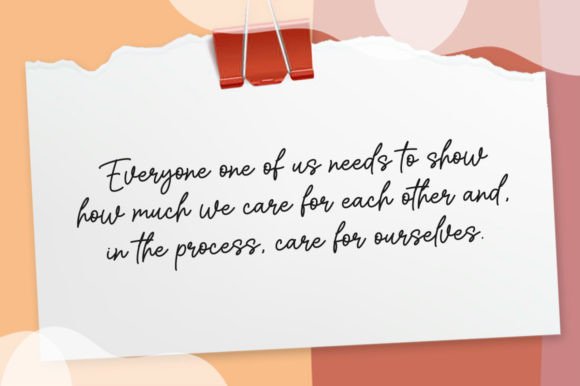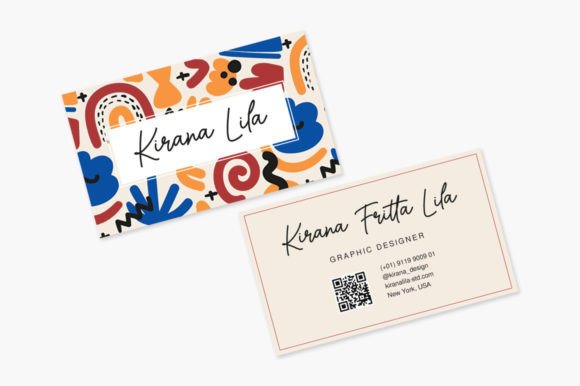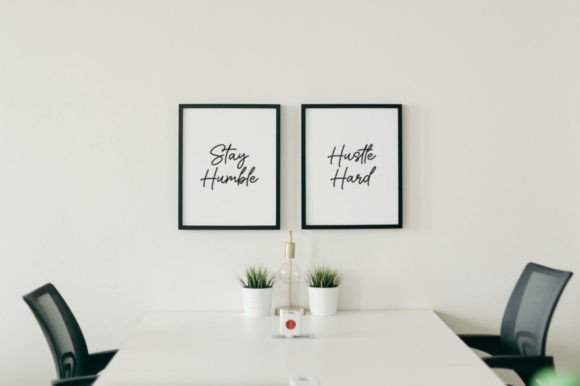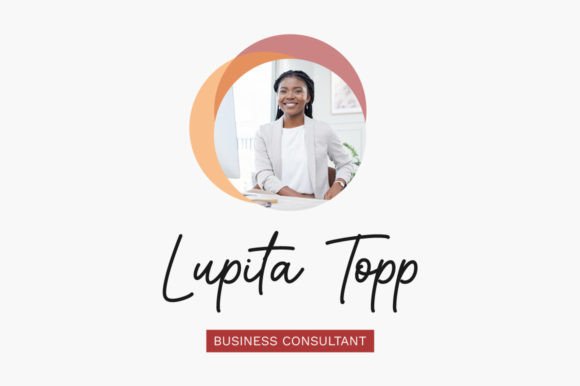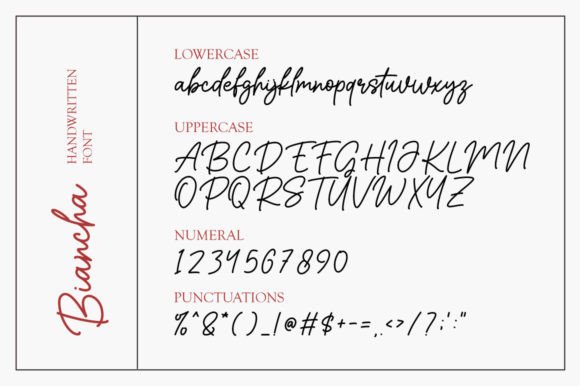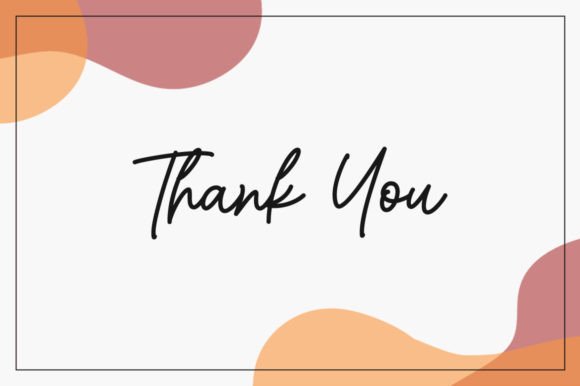
Biancha Font: Elevate Your Designs with Elegance and Sophistication
In the world of typography, fonts play a crucial role in conveying the tone and personality of a brand or design. For designers and crafters seeking a script font that exudes elegance, sophistication, and a touch of modernity, Biancha Font is an exceptional choice. This beautiful, well-balanced, and new-style script font is defined by smooth curves, making it perfect for fashion branding, editorial designs, and a wide range of creative projects.
The Characteristics of Biancha Font
Biancha Font boasts a unique set of characteristics that set it apart from other script fonts. Its smooth, flowing curves create a sense of fluidity and movement, making it ideal for designs that require a touch of dynamism. The font’s well-balanced structure ensures that it remains legible and visually appealing, even at smaller sizes. This versatility makes Biancha Font suitable for a variety of applications, from fashion branding and editorial designs to packaging and advertising.
Perfect for Fashion Branding
Fashion branding requires a font that is both stylish and sophisticated. Biancha Font meets these requirements with ease, providing a luxurious and high-end feel that is perfect for fashion labels, boutiques, and designers. The font’s elegant curves and smooth lines evoke a sense of refinement and poise, making it an excellent choice for branding materials such as logos, business cards, and packaging.
Ideal for Editorial Designs
Editorial designs, such as magazine articles, blog posts, and books, require a font that is both readable and visually appealing. Biancha Font excels in this area, providing a clear and concise reading experience that is easy on the eyes. The font’s smooth curves and flowing lines create a sense of continuity, making it perfect for longer pieces of content.
Key Features of Biancha Font
- Smooth Curves: Biancha Font features smooth, flowing curves that create a sense of fluidity and movement.
- Well-Balanced: The font’s well-balanced structure ensures that it remains legible and visually appealing, even at smaller sizes.
- Elegant and Sophisticated: Biancha Font exudes elegance and sophistication, making it perfect for fashion branding and editorial designs.
- Versatile: The font is suitable for a wide range of creative projects, from packaging and advertising to digital media and more.
Tips for Using Biancha Font
To get the most out of Biancha Font, consider the following tips:
- Use it as a Headline Font: Biancha Font is perfect for headlines and titles, where its elegant curves and smooth lines can really shine.
- Pair it with a Sans-Serif Font: For body text, consider pairing Biancha Font with a clean sans-serif font to create a striking contrast.
- Experiment with Colors: Biancha Font looks stunning in a range of colors, from rich jewel tones to soft pastels.
In conclusion, Biancha Font is a beautiful, well-balanced, and new-style script font that is perfect for designers and crafters seeking to elevate their designs with elegance and sophistication. Its smooth curves, elegant lines, and versatile nature make it an excellent choice for fashion branding, editorial designs, and a wide range of creative projects. With Biancha Font, you can add a touch of luxury and refinement to your designs, setting them apart from the rest.